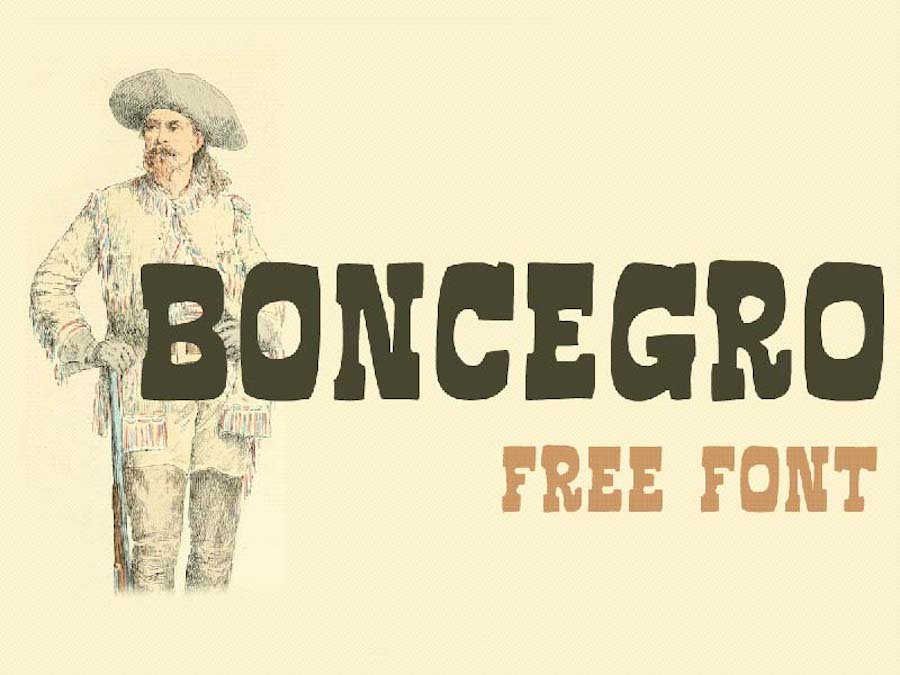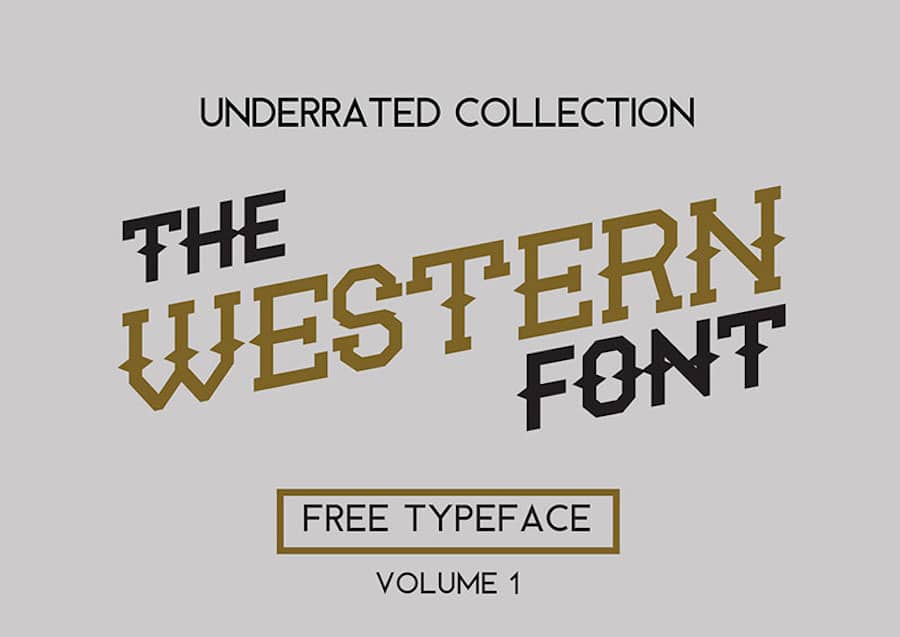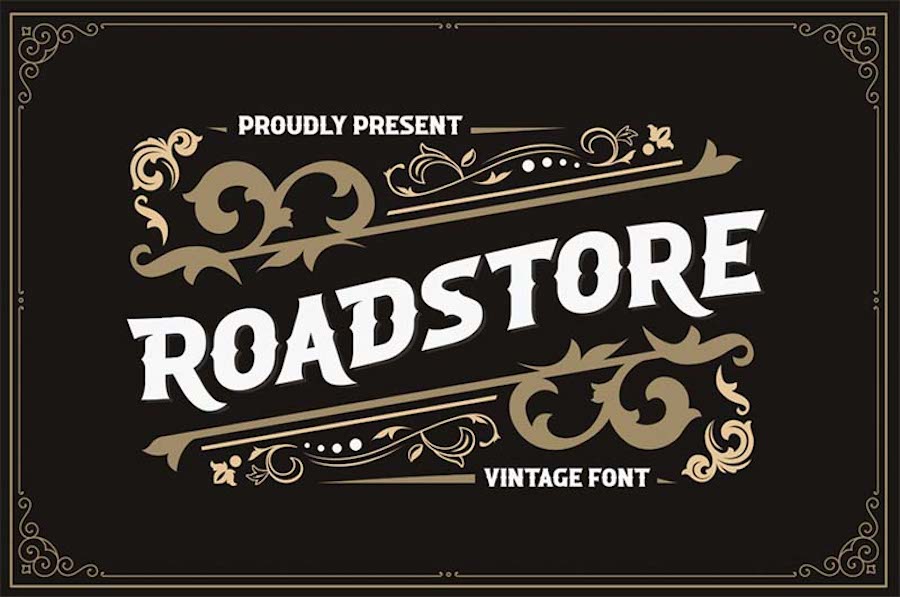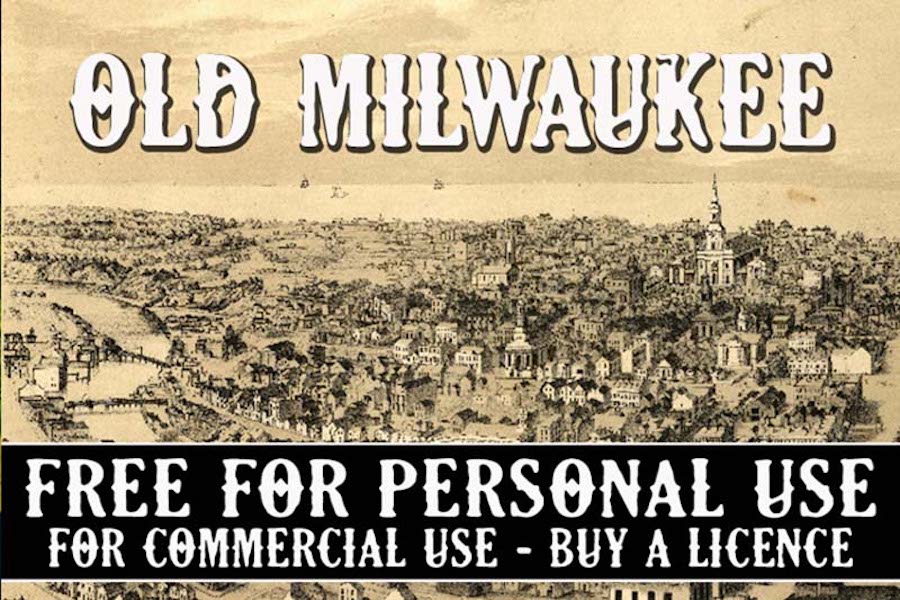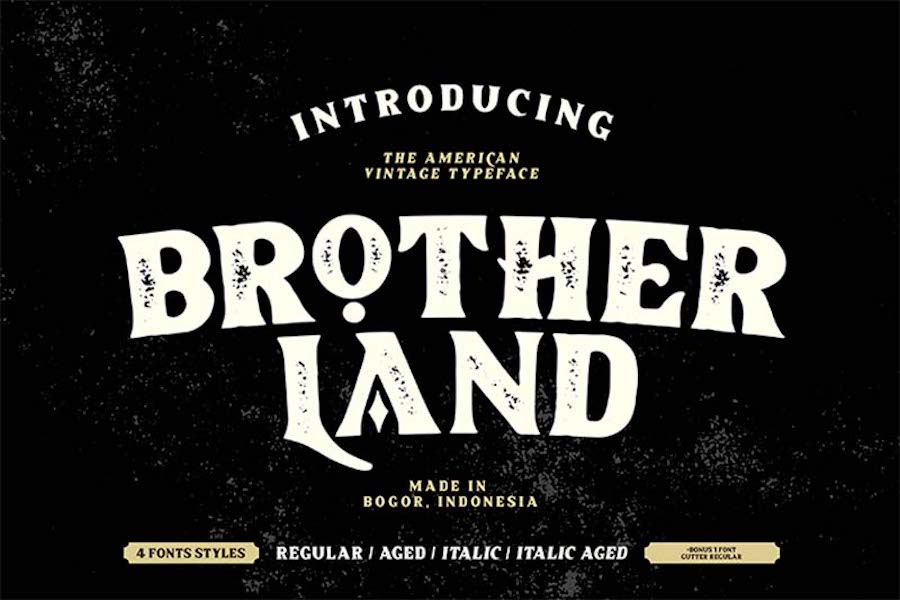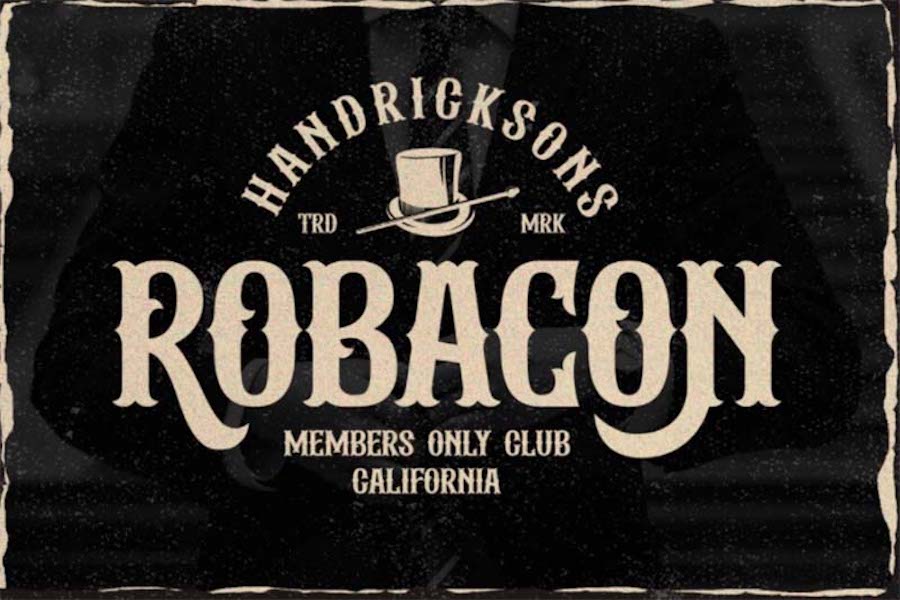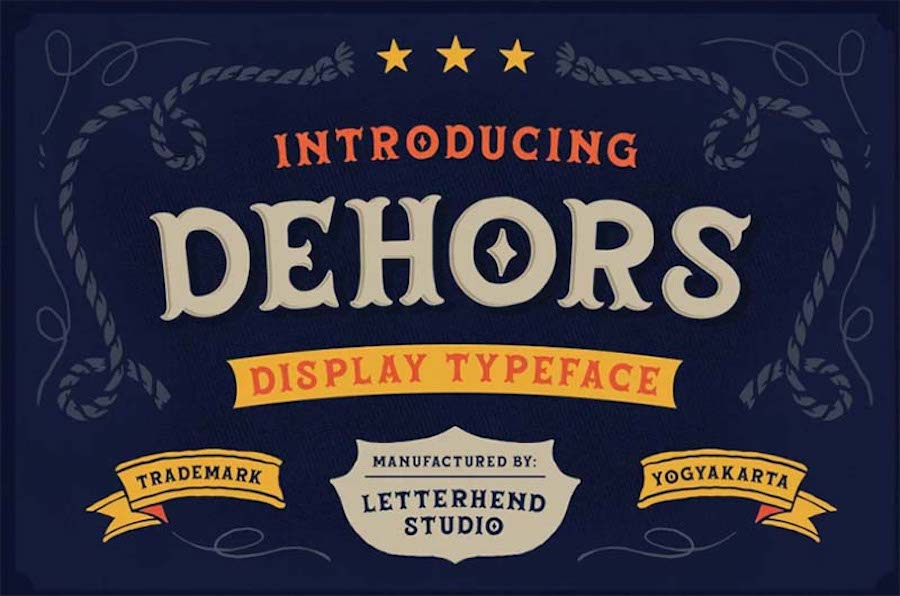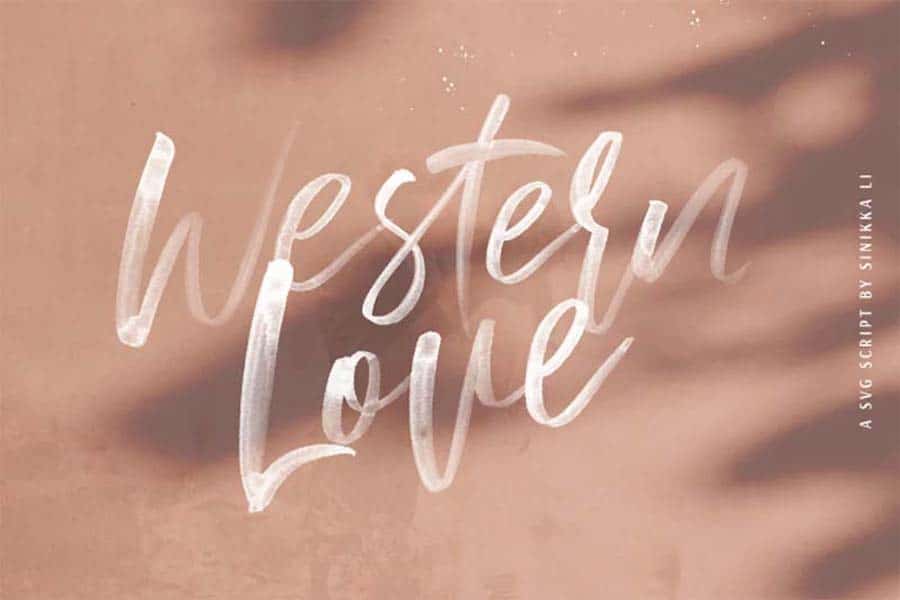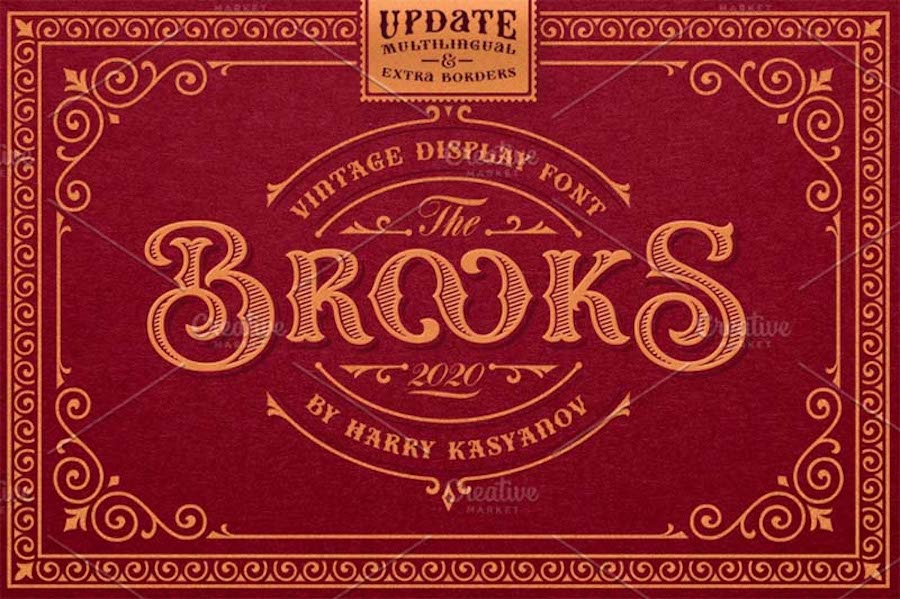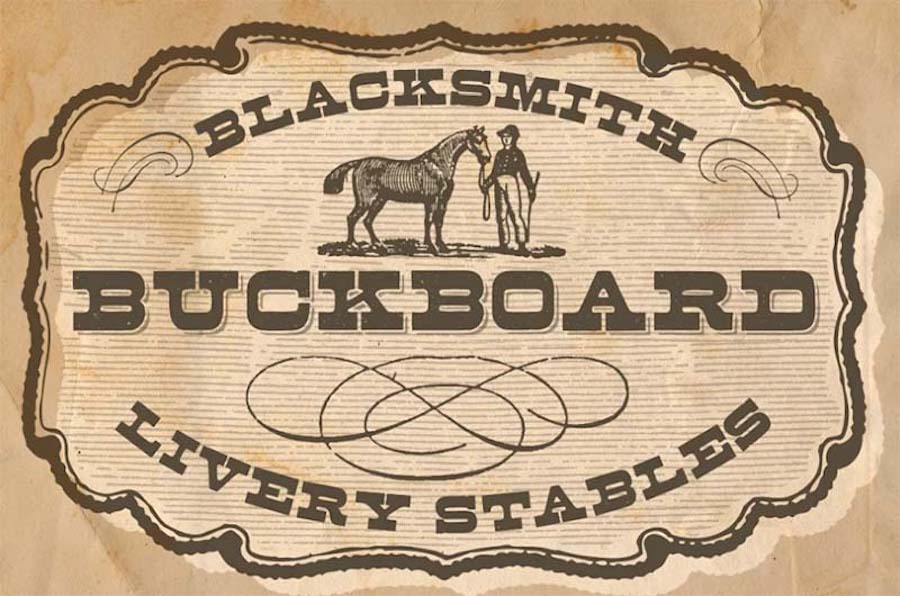
If you’re working on a design project that needs to be bold and demand attention, a high-quality, rugged Western font might be a perfect choice. Fonts that evoke the qualities of the Wild West, cowboys, the uncharted wilderness, and a free spirit are a great way to add character and unique style to your design composition.
Western fonts are also a perennial favorite in many designs focused on typography, especially for those looking to move away from more modern fonts. Western fonts look great on posters, logos, business cards, flyers, and more.
In this post, we’ve rounded up the best rugged, high-quality Western fonts that you can use in your designs and on your website.
19 Free Western Fonts
1. Boncegro
First up, we have the Boncegro font, which supports both the Latin and Cyrillic alphabets. It has plenty of character and would be perfect for posters and logos. The font is free for personal and commercial use.
2. Klipan Black
Get the look of Old West wanted posters with the help of this amazing font. Klipan Black contains more than 219 glyphs. The font is multilingual and would work well in logo design, posters, menus, and more. It’s licensed under the Open Font License and can be used in both personal and commercial projects.
3. UNDRRTD
UNDRRTD is truly an underrated typeface; it’s packed with personality. It’s a top choice if you want your design to pack a punch. The font comes with a set of basic uppercase and lowercase letters, and it can be used in commercial and personal projects.
4. The Sherloks
The Sherloks is a vintage typeface inspired by the Americana style. It comes in four different styles: regular, oblique regular, vintage, and oblique vintage. It includes 88+ characters and a set of ligatures to create gorgeous typographic designs. You can use it in any vintage design, including branding, logos, product packaging, invitation, quotes, t-shirt, labels, posters, and more. The font is free for personal projects.
5. Bonaparte
Influenced by Old West culture, this typeface has a rugged yet elegant look and feel. It has multilingual support and comes with eight font styles, alternate alphabet form, numerals, and uppercase and lowercase glyphs. You can download the Bonaparte regular weight font for free and use it in personal and commercial projects for branding, packaging, invitations, and more.
6. Cactus
Reminiscent of the cacti and desert areas found in the West, this typeface is bold and sure to make your designs stand out. It includes a set of basic alphabet glyphs, numerals, and punctuation. The Cactus Western font is free to use in both personal and commercial projects. It would work well in logo and poster design, or anywhere else where you need large headlines.
7. Wayne
The Wayne font is inspired by the spaghetti Westerns and actors like Clint Eastwood and John Wayne. Created by Brave Lion Fonts, it’s a free version of the classic Western slab serif. The font is a great choice for posters and display purposes, and you can use it in both commercial and personal projects.
Summary
As you can see, there’s no shortage of high-quality Western fonts, both free and paid. The only thing left to do now is to download your favorites and use them in your project.